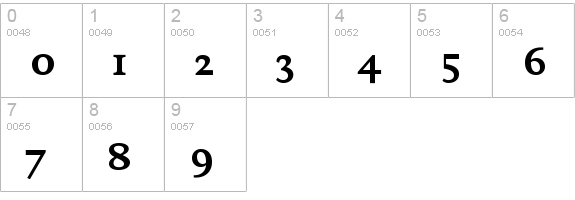
DTLDocumentaT-CapsBold Font Details
The DTLDocumentaT-CapsBold font is a striking and bold typeface designed to make a statement in any design project. Its unique blend of elegance and modernity makes it a versatile choice for a wide range of applications, from branding to editorial design. This font exudes confidence and sophistication, making it perfect for creating eye-catching headlines or adding a touch of sophistication to your projects. Best of all, this premium font is available for free download at FontsMarket.com, allowing you to elevate your designs without breaking the bank. With its clean lines and sharp edges, DTLDocumentaT-CapsBold is sure to stand out and leave a lasting impression on your audience. Don't miss out on this fantastic opportunity to enhance your design arsenal with this stunning font. Download it today and start creating impactful designs that turn heads.